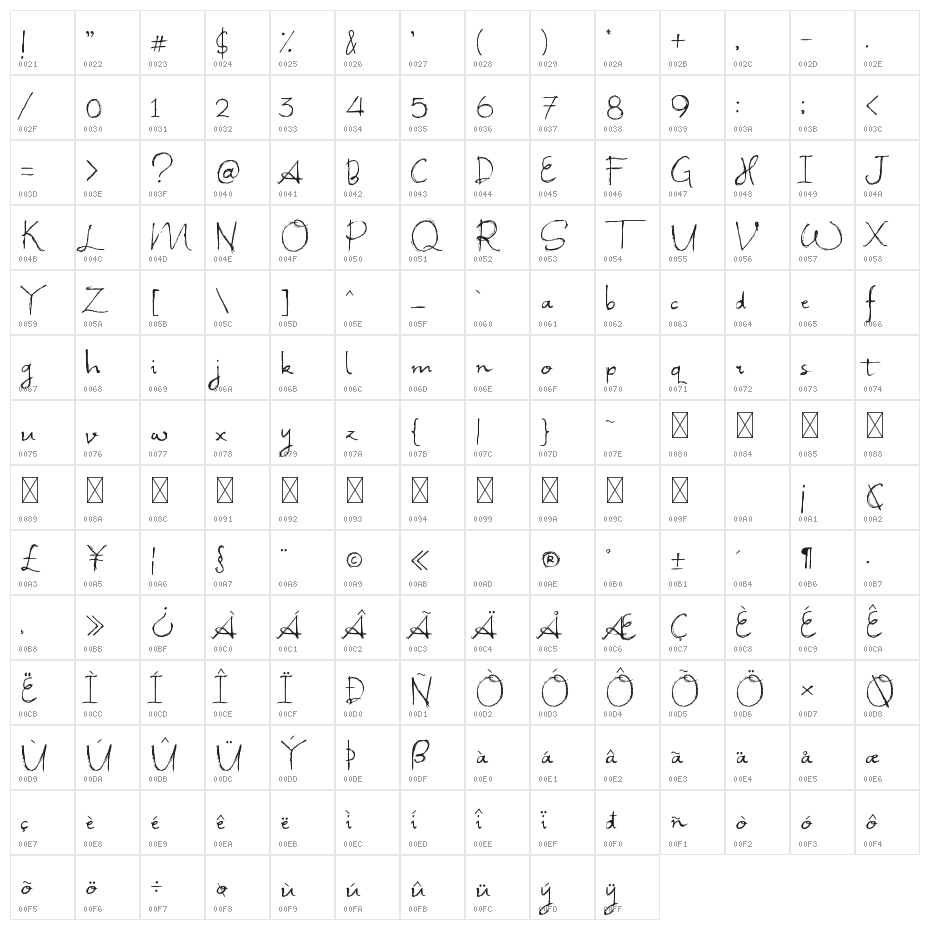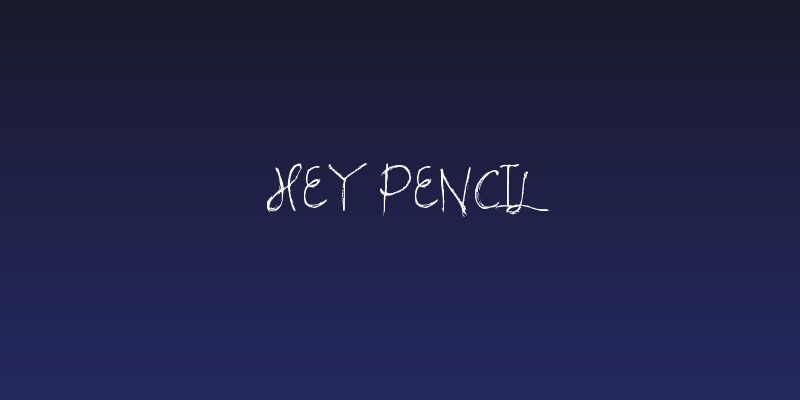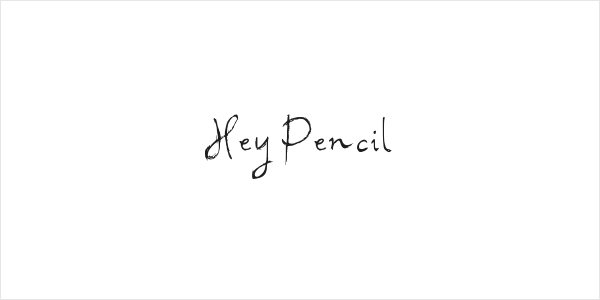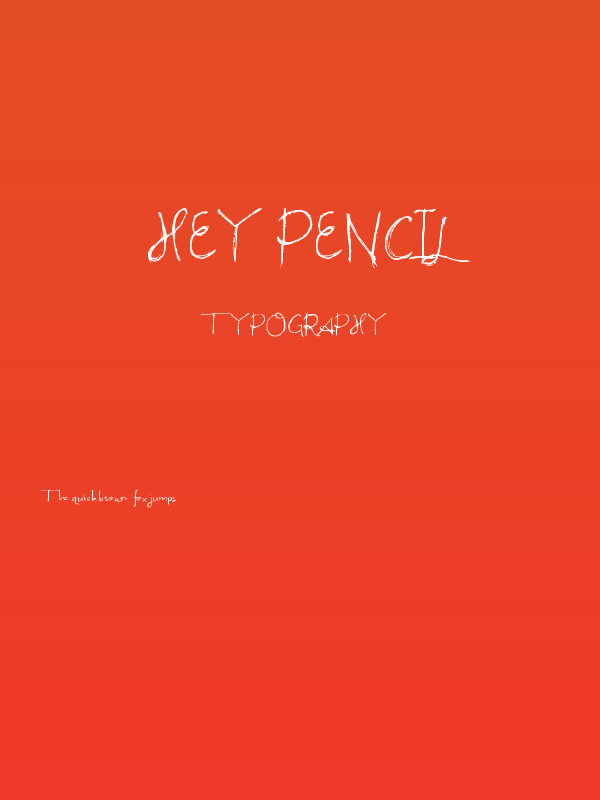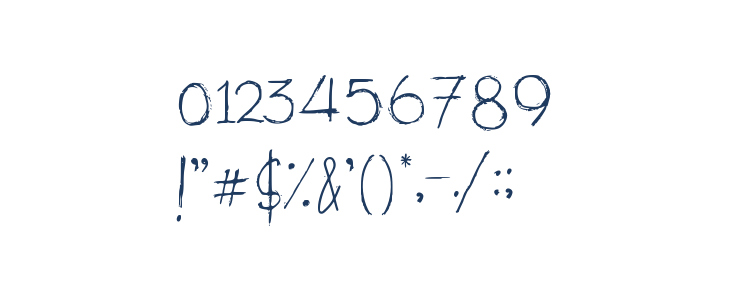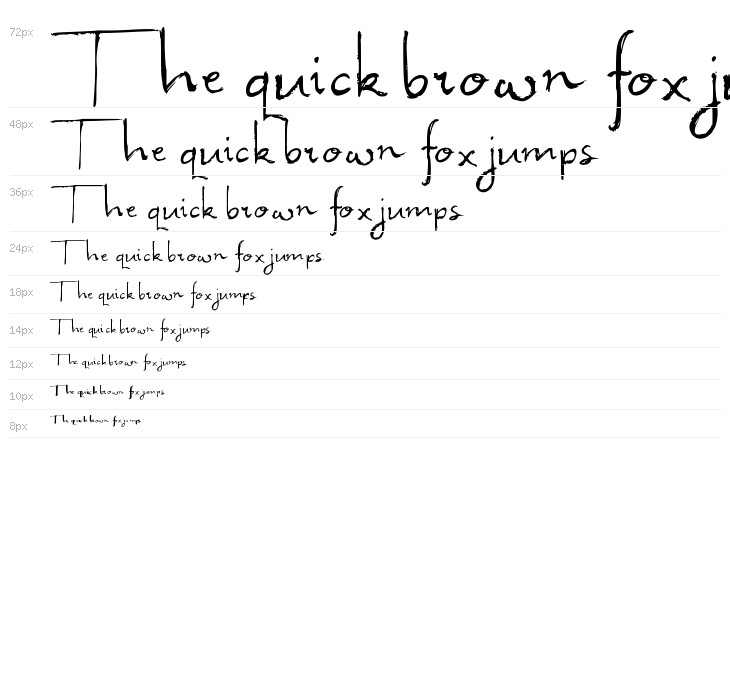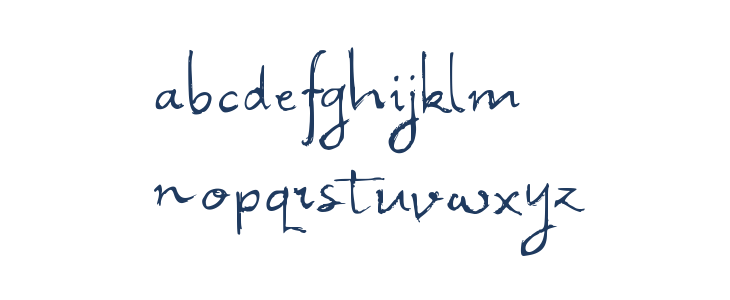
Hey Pencil Font
Hey Pencil Description
This font features a hand-drawn, sketch-like appearance, reminiscent of pencil strokes on paper. The characters are irregular and organic, with varying line thickness that adds a dynamic and artistic flair. The uppercase letters are bold and expressive, while the lowercase letters maintain a playful and casual style. Numbers and special characters follow the same hand-drawn aesthetic, making the font suitable for creative and informal designs. The overall look is both whimsical and approachable, perfect for projects that require a personal touch.
| Proposed Projects | Ideal for children's book illustrations, creative posters, artistic branding, and casual invitations. |